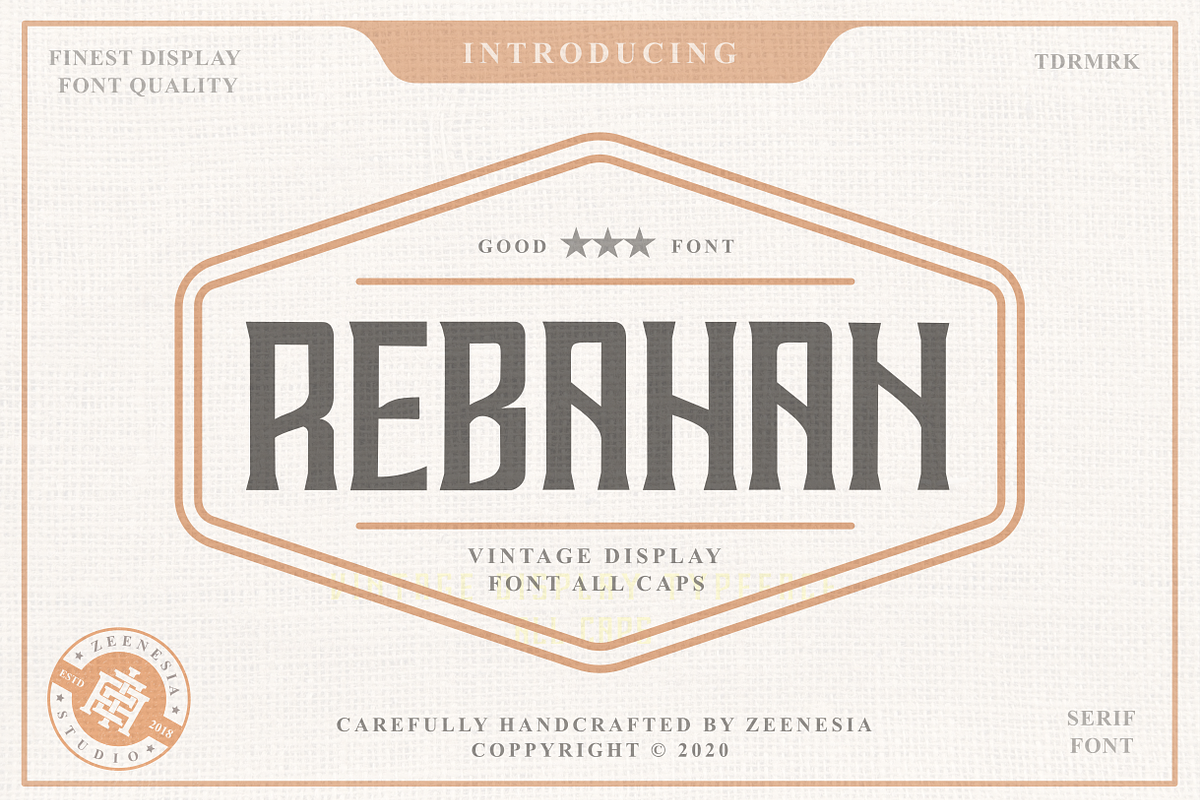
REBAHAN - Vintage Display Font Free Download
REBAHAN - Vintage Display Font Free Download is a bold and nostalgic typeface inspired by retro signage, classic labels, and old-school branding. With its strong lines, unique curves, and vintage flair, REBAHAN is perfect for logo design, coffee shop menus, apparel prints, packaging, poster art, and retro-themed social media content.
This display font captures the laid-back charm of vintage aesthetics while delivering a modern twist that keeps it relevant and versatile. Whether you're designing for a throwback brand or adding a retro vibe to a modern project, REBAHAN brings character and warmth to your typography.